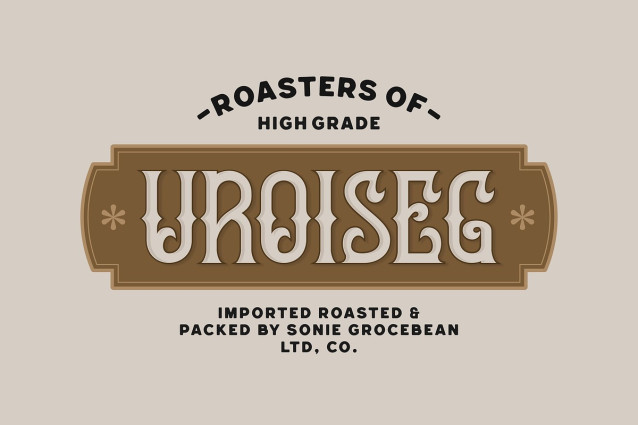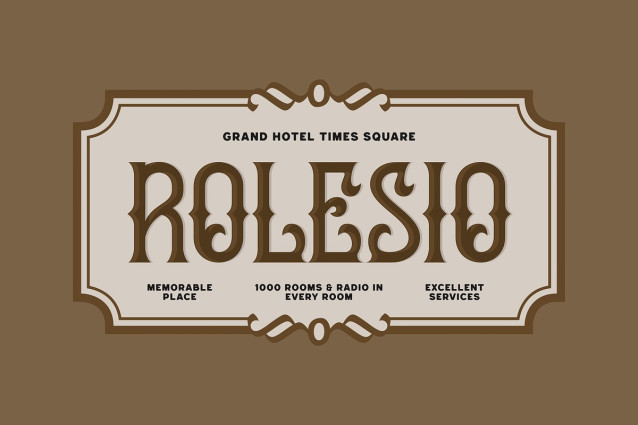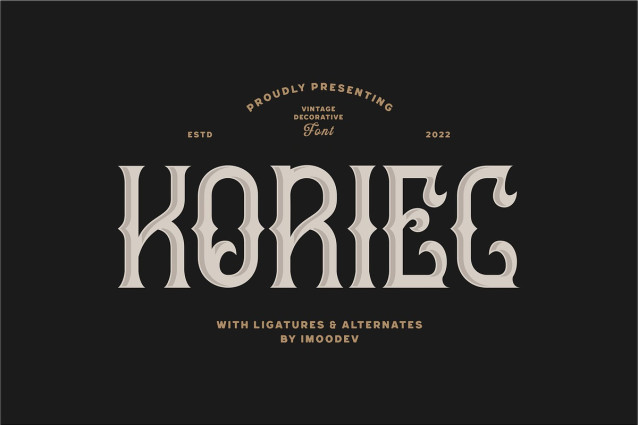
Koriec Vintage Font
Koriec Vintage Font a captivating and old vintage font that breathes life into any design. Drawing inspiration from the ornate typography of the art nouveau and victorian eras.
The letterforms are a masterclass in detail and elegance. Each character features a strong, high contrast structure with sharp, dagger like serifs that command attention.
Koriec is the ideal choice for branding projects that require a touch of class and distinction. It excels in logotypes, packaging for high end products like coffee or spirits, sophisticated headlines for posters and magazines, luxury hotel branding, classic wedding invitations, and eye catching apparel design.